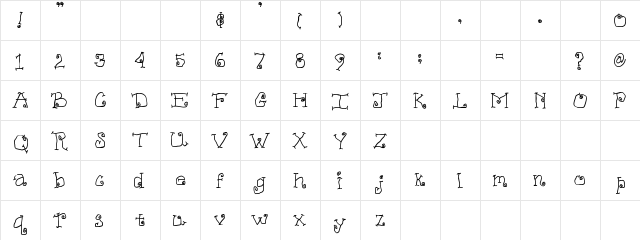
SBC Funky Chunk Bold SBC Funky Chunk Bold
Design Context for SBC Funky Chunk Bold Typeface
SBC Funky Chunk Bold trades formality for fun, with bouncy, characterful letterforms that bring warmth and energy to any project.
Font Pairing: Pairs well with a rounded or humanist sans for body copy, maintaining the friendly tone without relying on SBC Funky Chunk Bold to carry extended reading.
Pro Tip: Use SBC Funky Chunk Bold at larger display sizes where its expressive character can land. Pair with a clean, simple sans for body copy to maintain readability.